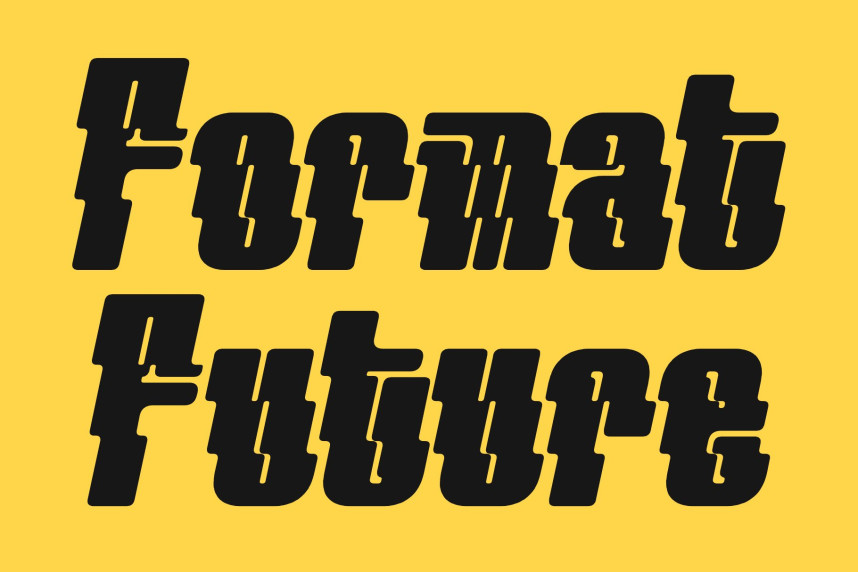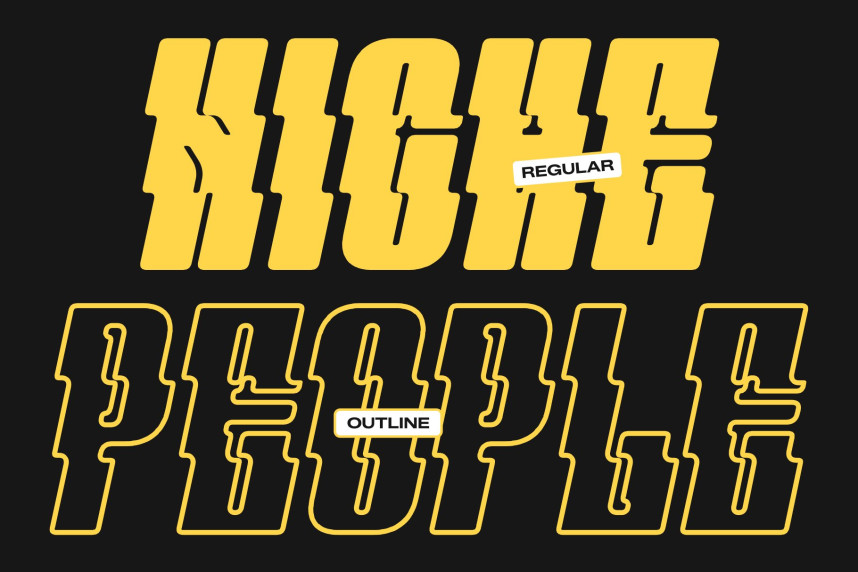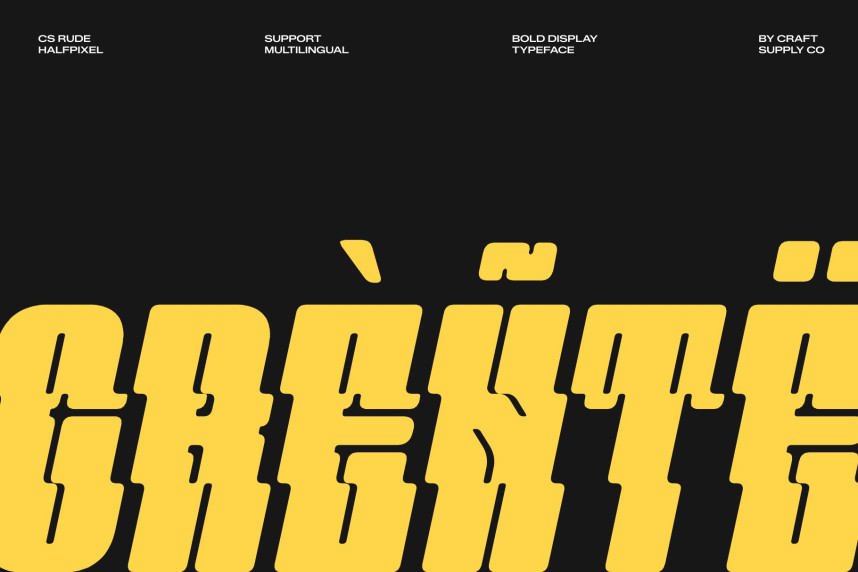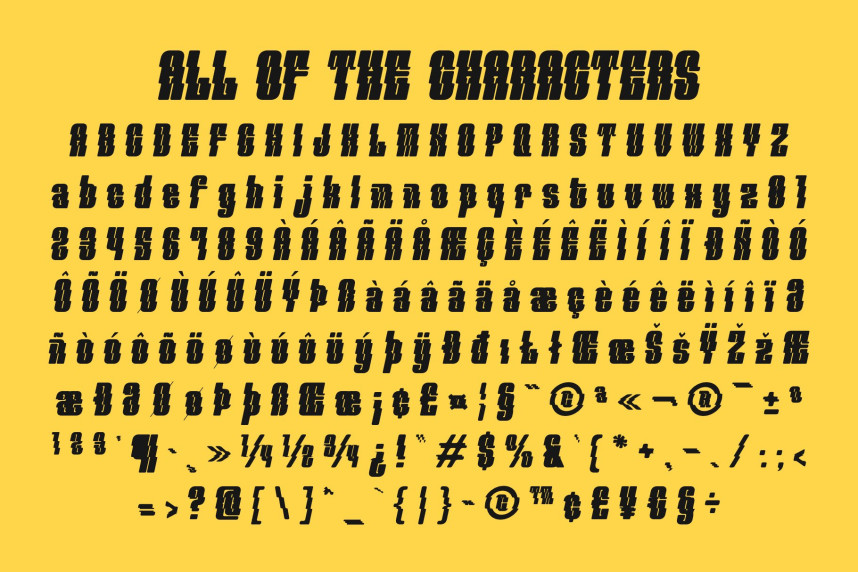
CS Rude Rippled Font
CS Rude Rippled Font – Modern Condensed Sans Serif Font: Where Industrial Strength Meets Fluid Wave Motion
Bold Condensed Forms with Powerful Presence
This is a modern condensed sans serif font designed to deliver a bold industrial edge. Featuring compact proportions, clean geometric construction, and confident letterforms, it creates typography with exceptional visual impact while maximizing space efficiency. Its strong structure makes it ideal for bold headlines and commanding brand identities.